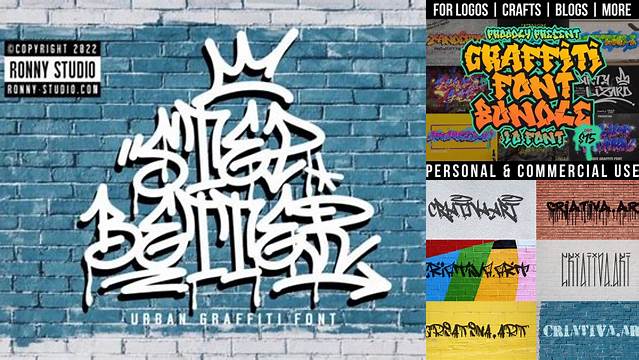
Free Graffiti Fonts For Commercial Use: Unleash Your Creativity
Hey guys! Are you looking to add some urban flair to your designs? You've come to the right place! Finding the perfect graffiti font that’s both free and commercially usable can be a bit of a mission. But don't worry, we've got you covered. In this article, we're diving deep into the world of graffiti fonts free for commercial use, exploring everything from where to find them to how to use them effectively. Let's get started!
1. Understanding Graffiti Fonts
Let's kick things off by understanding what exactly graffiti fonts are and why they're so popular. Graffiti fonts mimic the style of street art, bringing that raw, edgy aesthetic to your digital projects. They often feature bold strokes, irregular shapes, and a hand-drawn feel, making them perfect for designs that need a touch of urban authenticity. These fonts can instantly add character and attitude, whether you're working on a poster, logo, or social media graphic.
The beauty of graffiti fonts lies in their ability to convey a sense of rebellion and creativity. They break away from traditional, polished typography, offering a more expressive and dynamic alternative. Many designers and creatives are drawn to this style because it allows them to make a bold statement and stand out from the crowd. Using graffiti fonts free for commercial use means you can achieve this unique look without breaking the bank or worrying about licensing issues.
When you're choosing a graffiti font, consider the specific vibe you want to create. Some fonts are more aggressive and chaotic, while others are cleaner and more stylized. Think about the context of your project and select a font that complements your overall design. Remember, the right font can make all the difference in capturing the attention of your audience and conveying your message effectively. So, take your time, explore different options, and don't be afraid to experiment with various styles to find the perfect fit.
3. Top Websites for Free Graffiti Fonts
Ready to find some awesome fonts? There are several websites where you can find graffiti fonts free for commercial use. Here are a few of the best:
- DaFont: DaFont is a classic resource with a huge selection of fonts, including many graffiti styles. Make sure to check the license for each font, as they vary.
- FontSpace: FontSpace offers a wide range of free fonts, with clear licensing information. It's easy to filter your search to find fonts that are specifically for commercial use.
- Google Fonts: While Google Fonts doesn't have a massive selection of graffiti fonts, the ones they do offer are high-quality and explicitly licensed for commercial use.
- Creative Fabrica: Creative Fabrica often has freebies and deals that include commercial-use fonts. Keep an eye on their promotions to snag some great finds.
- MyFonts: MyFonts, while primarily a marketplace for paid fonts, occasionally offers free fonts with commercial licenses. It’s worth checking periodically for new additions.
When browsing these sites, always pay close attention to the licensing details. Look for terms like "100% free for commercial use" or "public domain." If you're unsure, it's always a good idea to contact the font's creator or the website's support team for clarification. This extra step can prevent potential legal issues and ensure you're using the fonts responsibly.
4. Key Features to Look for in a Graffiti Font
When you’re on the hunt for the perfect graffiti fonts free for commercial use, there are certain features you should keep an eye out for. These features can significantly impact the quality and versatility of the font, ensuring it meets your specific design needs.
- Readability: While graffiti fonts are known for their unique and edgy designs, readability is still crucial. Make sure the font is legible enough to convey your message effectively. A font that's too chaotic or distorted might be difficult for your audience to read, defeating the purpose of your design.
- Completeness: Check if the font includes all the characters you need, such as uppercase and lowercase letters, numbers, punctuation marks, and special symbols. A complete character set will give you more flexibility and control over your typography.
- Style Variations: Some graffiti fonts come with different weights, styles, or alternates. These variations can help you create visual interest and add depth to your designs. For example, a font might offer both a regular and bold version, or different stylistic alternates for certain letters.
- Licensing Terms: Always, always double-check the licensing terms. Ensure the font is indeed free for commercial use and understand any restrictions or requirements that may apply. This is perhaps the most important feature to verify before incorporating a font into your project.
- File Format: Make sure the font is available in a format that's compatible with your design software, such as TTF or OTF. These formats are widely supported and easy to install on most operating systems.
By considering these features, you can choose a graffiti font that not only looks great but also meets your practical design needs. Taking the time to evaluate these aspects will help you create professional and impactful designs that stand out from the crowd.
5. How to Install Graffiti Fonts on Your Computer
Okay, you've found the perfect graffiti fonts. Now what? Installing them is usually a breeze. Here’s a quick guide:
- Download the Font: Download the font file from the website. It usually comes in a ZIP file.
- Extract the Files: Unzip the downloaded file. You should see one or more files with extensions like .ttf or .otf.
- Install on Windows: Right-click the font file and select "Install." Alternatively, you can copy the font file to the Fonts folder in your Windows directory (usually C:\Windows\Fonts).
- Install on macOS: Double-click the font file. Font Book will open, and you can click "Install Font" at the bottom of the window.
Once installed, the graffiti font will be available in your design software, like Adobe Photoshop, Illustrator, or Canva. If you have any of these programs open during the installation, you might need to restart them for the new font to appear in the font list. Enjoy using your new fonts to create stunning designs!
Installing graffiti fonts free for commercial use is a straightforward process, but it's essential to follow the steps correctly to ensure the fonts are properly installed and accessible in your design applications. If you encounter any issues during installation, refer to the documentation provided with the font or consult online resources for troubleshooting tips. With a little patience, you'll be up and running in no time, ready to unleash your creativity with your new fonts.
6. Using Graffiti Fonts in Graphic Design
Using graffiti fonts free for commercial use in graphic design can add a unique and edgy touch to your projects. Here’s how to make the most of them:
- Posters and Flyers: Graffiti fonts are perfect for creating eye-catching posters and flyers, especially for events, concerts, or urban-themed promotions. Their bold and expressive style can grab attention and convey a sense of excitement.
- Logos and Branding: Incorporating a graffiti font into your logo can give your brand a distinctive and memorable identity. This works particularly well for businesses that want to project a cool, rebellious, or urban image.
- Social Media Graphics: Use graffiti fonts to create engaging social media graphics that stand out from the crowd. They can add personality and flair to your posts, helping you attract more followers and increase engagement.
- T-Shirt Designs: Graffiti fonts are a popular choice for t-shirt designs, especially those with a street-style or urban theme. Their bold and dynamic appearance can make your designs more visually appealing and marketable.
- Website Headers: Use graffiti fonts sparingly in website headers to create a striking first impression. However, be mindful of readability and ensure the font complements your overall website design.
When using graffiti fonts free for commercial use, it’s important to balance style with functionality. Avoid overusing them, as too much graffiti can make your designs look cluttered and unprofessional. Instead, use them strategically to highlight key messages and create visual interest. Experiment with different font combinations, colors, and effects to achieve the desired look. With a little creativity and attention to detail, you can use graffiti fonts to create stunning designs that resonate with your target audience.
7. Pairing Graffiti Fonts with Other Fonts
Combining graffiti fonts free for commercial use with other fonts can create visually appealing and balanced designs. The key is to choose fonts that complement the graffiti style without overshadowing it.
- Sans-Serif Fonts: Pairing a graffiti font with a clean and modern sans-serif font can create a striking contrast. Use the sans-serif font for body text or secondary information, while reserving the graffiti font for headings or titles.
- Serif Fonts: A classic serif font can add a touch of sophistication to your designs when paired with a graffiti font. Choose a serif font with a strong personality to create a balanced and harmonious look.
- Script Fonts: Combining a graffiti font with a script font can create a dynamic and expressive design. However, be careful not to overuse script fonts, as they can sometimes be difficult to read. Use them sparingly for emphasis or decorative elements.
- Monospace Fonts: A monospace font can provide a clean and technical contrast to the organic and hand-drawn feel of a graffiti font. This combination works well for designs that need to convey both creativity and precision.
When pairing graffiti fonts free for commercial use with other fonts, consider the overall tone and message of your design. Experiment with different font combinations until you find a look that works well together. Pay attention to the font sizes, weights, and spacing to ensure readability and visual balance. By carefully selecting and combining fonts, you can create designs that are both visually appealing and effective in communicating your message.
8. Legal Considerations for Using Free Fonts
Before you get too carried away, let's talk about the legal stuff. Even when a font is advertised as graffiti fonts free for commercial use, there are a few things you need to keep in mind:
- Read the License: Always read the font's license agreement carefully. This document outlines the terms and conditions under which you can use the font. Pay attention to any restrictions or requirements, such as attribution requirements or limitations on modification.
- Verify the Source: Make sure you're downloading fonts from a reputable source. Avoid downloading fonts from untrustworthy websites, as they may contain malware or viruses.
- Keep a Record: Keep a record of the fonts you've downloaded and their license agreements. This will help you stay organized and ensure you're complying with the terms of use.
- Seek Clarification: If you're unsure about any aspect of the font's license, don't hesitate to contact the font's creator or the website's support team for clarification.
Understanding the legal considerations for using graffiti fonts free for commercial use is essential for protecting yourself from potential legal issues. By taking the time to read and understand the license agreements, verifying the source of your fonts, and keeping accurate records, you can use these fonts with confidence and peace of mind. Remember, it's always better to be safe than sorry when it comes to copyright law.
9. Graffiti Fonts for Logos
Graffiti fonts can add a unique and edgy touch to logos, making them stand out from the crowd. When using graffiti fonts free for commercial use for logos, consider the following:
- Brand Identity: Make sure the graffiti font aligns with your brand identity. If your brand is edgy, urban, or rebellious, a graffiti font can be a great choice. However, if your brand is more traditional or conservative, a graffiti font may not be the best fit.
- Readability: Ensure the graffiti font is legible enough to be easily read in your logo. A logo that's difficult to read will not be effective in communicating your brand message.
- Simplicity: Keep your logo design simple and uncluttered. A logo with too many elements can be overwhelming and difficult to remember.
- Versatility: Choose a graffiti font that is versatile enough to be used in a variety of applications, such as on your website, business cards, and marketing materials.
Using graffiti fonts free for commercial use for logos can be a great way to create a distinctive and memorable brand identity. By carefully selecting a font that aligns with your brand identity, ensuring readability, keeping your design simple, and choosing a versatile font, you can create a logo that effectively communicates your brand message and stands out from the competition.
10. Graffiti Fonts for T-Shirts
Graffiti fonts are a popular choice for t-shirt designs, especially those with a street-style or urban theme. When using graffiti fonts free for commercial use for t-shirts, consider the following:
- Design Placement: Think about where you want to place the graffiti font on the t-shirt. Common placements include the front, back, or sleeves.
- Color Combinations: Experiment with different color combinations to create a visually appealing design. Consider using contrasting colors to make the graffiti font stand out.
- Size and Scale: Adjust the size and scale of the graffiti font to fit the t-shirt design. Make sure the font is large enough to be easily read, but not so large that it overwhelms the design.
- Design Elements: Incorporate other design elements, such as graphics or illustrations, to complement the graffiti font and create a more complete design.
Using graffiti fonts free for commercial use for t-shirts can be a great way to create unique and stylish designs that appeal to your target audience. By carefully considering the design placement, color combinations, size and scale, and other design elements, you can create t-shirts that are both visually appealing and marketable.
11. Graffiti Fonts for Posters
For posters that need a bold, attention-grabbing look, graffiti fonts are an excellent choice. Their edgy and urban aesthetic can make any poster stand out. Here’s what to consider when using graffiti fonts free for commercial use for posters:
- Target Audience: Think about who your poster is trying to reach. Graffiti fonts work best for younger audiences or those interested in urban culture, music, and art. If your target audience is more corporate or traditional, a graffiti font might not be the best choice.
- Poster Size: The size of your poster will affect how readable the font is. For large posters, you can use more intricate and detailed graffiti fonts. For smaller posters, opt for simpler, more legible designs.
- Message Clarity: Make sure the message on your poster is clear and easy to understand. While graffiti fonts can add flair, readability should always be a top priority. Use the font for key words or phrases that you want to emphasize.
- Color Scheme: Choose colors that complement the graffiti font and enhance the overall visual impact of the poster. Bold, contrasting colors often work well with graffiti styles.
12. Graffiti Fonts for Social Media
In the fast-paced world of social media, capturing attention is key. Graffiti fonts can help you create posts that pop and grab your audience's attention. When using graffiti fonts free for commercial use for social media, keep these tips in mind:
- Platform Compatibility: Make sure the graffiti font you choose is compatible with the social media platform you're using. Some platforms may have limitations on font types or sizes.
- Mobile-Friendly: Most social media users access content on their mobile devices, so it's important to choose a graffiti font that is legible on small screens. Avoid overly intricate or stylized fonts that may be difficult to read on mobile.
- Brand Consistency: Maintain brand consistency by using the same graffiti font across all your social media posts. This will help reinforce your brand identity and make your content more recognizable.
- Call to Action: Use graffiti fonts to highlight your call to action and encourage your audience to take the desired action, such as visiting your website or making a purchase.
13. Graffiti Fonts for Websites
Using graffiti fonts free for commercial use on your website can add a unique and edgy touch, but it's important to use them strategically. Here’s what to consider:
- Loading Speed: Graffiti fonts can sometimes be large files, which can slow down your website's loading speed. Optimize the font files to ensure they don't negatively impact your website's performance.
- User Experience: Consider the user experience when using graffiti fonts on your website. Avoid using them for large blocks of text, as they can be difficult to read. Instead, use them sparingly for headings, titles, or other key elements.
- SEO Considerations: Use graffiti fonts in a way that doesn't negatively impact your website's SEO. Make sure your website is still easily crawlable by search engines, and that your content is optimized for relevant keywords.
- Accessibility: Ensure that your website is accessible to users with disabilities. Use appropriate color contrast and font sizes to make your content easy to read.
14. Free vs. Paid Graffiti Fonts
When choosing graffiti fonts free for commercial use, you might wonder about the differences between free and paid options. Here's a breakdown:
- Quality: Paid graffiti fonts often offer higher quality and more detailed designs compared to free fonts. They may also include additional features, such as multiple weights, styles, or language support.
- Licensing: Free graffiti fonts may have more restrictive licensing terms compared to paid fonts. Always read the license agreement carefully to ensure you're complying with the terms of use.
- Support: Paid graffiti fonts typically come with customer support, which can be helpful if you have any questions or issues. Free fonts may not offer any support.
- Uniqueness: Paid graffiti fonts are often more unique and less widely used compared to free fonts. This can help your designs stand out and create a more distinctive brand identity.
15. Creating Your Own Graffiti Font
Want to take your creativity to the next level? Consider creating your own graffiti font! Here's a basic overview of the process:
- Sketching: Start by sketching out the letters and characters you want to include in your font. Experiment with different styles and techniques to create a unique and original design.
- Digitizing: Use a digital drawing tablet and software like Adobe Illustrator or Procreate to digitize your sketches. Refine your designs and create clean, vector-based versions of each character.
- Font Software: Import your digitized characters into font software like FontLab Studio or Glyphs. These programs allow you to create a functional font file that can be installed and used on your computer.
- Testing: Test your font thoroughly to ensure it works correctly and looks good in a variety of applications. Make any necessary adjustments or refinements before finalizing your design.
16. The Evolution of Graffiti Fonts
The story of graffiti fonts is intertwined with the history of street art and urban culture. Originating from the tagging and lettering styles of graffiti artists, these fonts have evolved significantly over time. Early graffiti fonts were often simple and raw, reflecting the DIY spirit of the street art movement. As graffiti gained more recognition and acceptance, graffiti fonts became more sophisticated and stylized.
Today, graffiti fonts are used in a wide range of design applications, from posters and logos to websites and social media graphics. They have become a versatile and expressive tool for designers looking to add a touch of urban flair to their work. The evolution of graffiti fonts reflects the ongoing evolution of street art and its influence on mainstream culture.
17. The Psychology of Graffiti Fonts
Graffiti fonts evoke a range of emotions and associations, from rebellion and edginess to creativity and urban authenticity. Understanding the psychology of graffiti fonts can help you use them more effectively in your designs. These fonts often convey a sense of youthfulness, energy, and nonconformity.
When used appropriately, graffiti fonts can grab attention, create visual interest, and communicate a sense of excitement or urgency. However, they can also be perceived as aggressive or chaotic if used improperly. Consider your target audience and the message you want to convey when choosing a graffiti font for your design.
18. Graffiti Fonts in Pop Culture
Graffiti fonts have made a significant impact on pop culture, appearing in movies, music videos, video games, and other forms of entertainment. They are often used to create a sense of urban realism or to convey a rebellious attitude.
Many iconic brands and artists have used graffiti fonts to promote their products or express their creative vision. From album covers to movie posters, graffiti fonts have become a recognizable and influential element of pop culture.
19. Graffiti Font Generators
If you need a quick and easy way to create graffiti-style text, consider using a graffiti font generator. These online tools allow you to enter text and generate an image with a graffiti font of your choice.
While graffiti font generators can be convenient, keep in mind that the quality of the output may not be as high as a professionally designed font. Also, be sure to check the licensing terms before using the generated images for commercial purposes.
20. Graffiti Fonts and Street Art
The connection between graffiti fonts and street art is undeniable. Graffiti fonts are inspired by the lettering styles and techniques used by graffiti artists in urban environments. Many graffiti fonts incorporate elements of tagging, stencils, and other forms of street art.
Using graffiti fonts in your designs can be a way to pay homage to the street art movement and to bring a touch of urban authenticity to your work. However, it's important to be respectful of the culture and to avoid appropriating or misrepresenting it.
21. Best Graffiti Fonts for Beginners
If you're just starting out with graffiti fonts, it's best to begin with simpler, more legible designs. Here are a few good options for beginners:
- Bombing: A classic graffiti font with bold, rounded letters.
- Street Cred: A clean and modern graffiti font with a slightly distressed look.
- Urban Decay: A grungy graffiti font with a rough, textured appearance.
- Tag Machine: A simple and versatile graffiti font that's easy to read.
22. Advanced Techniques with Graffiti Fonts
Once you're comfortable using graffiti fonts, you can start experimenting with more advanced techniques. Here are a few ideas:
- Layering: Layer multiple graffiti fonts on top of each other to create depth and visual interest.
- Distorting: Distort or warp graffiti fonts to create a more dynamic and unconventional look.
- Adding Effects: Add effects like shadows, glows, or textures to enhance the visual impact of your graffiti fonts.
- Customizing: Customize graffiti fonts by adding your own unique touches, such as hand-drawn elements or illustrations.
23. The Future of Graffiti Fonts
As design trends continue to evolve, graffiti fonts are likely to remain a popular and influential element of visual culture. With the rise of digital art and the increasing accessibility of design tools, we can expect to see even more innovative and experimental graffiti fonts in the future.
The future of graffiti fonts may also involve incorporating new technologies like virtual reality and augmented reality, allowing designers to create immersive and interactive graffiti-inspired experiences.
24. Graffiti Fonts in Motion Graphics
Graffiti fonts can add a dynamic and energetic touch to motion graphics projects. They are often used in title sequences, lower thirds, and other animated elements to create a sense of urban style or rebellious attitude.
When using graffiti fonts in motion graphics, consider animating the letters or adding effects like spray paint or dripping ink to enhance the visual impact.
25. Graffiti Fonts for Event Invitations
If you're hosting an event with an urban, edgy, or rebellious theme, graffiti fonts can be a great choice for your invitations. They can help set the tone for the event and create a sense of excitement and anticipation.
When using graffiti fonts for event invitations, be sure to include all the essential information, such as the date, time, location, and RSVP details. Keep the design clean and uncluttered to ensure that the information is easy to read.
26. Graffiti Fonts and Subcultures
Graffiti fonts have deep roots in various subcultures, including hip-hop, punk rock, and skateboarding. They are often used to express the values and attitudes of these subcultures.
Understanding the cultural context of graffiti fonts can help you use them more effectively in your designs. Consider the specific subculture you're targeting and choose a graffiti font that aligns with its values and aesthetics.
27. Graffiti Fonts for Album Art
Graffiti fonts are a popular choice for album art, especially for hip-hop, punk rock, and alternative music genres. They can help create a visually striking and memorable cover that reflects the music's style and attitude.
When using graffiti fonts for album art, be sure to consider the overall design of the cover and choose a font that complements the other elements, such as the imagery and color scheme.
28. Graffiti Fonts and Branding
Using graffiti fonts free for commercial use as part of your branding can give your business a unique and edgy identity. Here’s how to do it right:
- Target Audience: Know who you’re trying to reach. Graffiti fonts work well if your audience is into street culture, art, or a more rebellious vibe. If you're targeting a more corporate or traditional audience, this might not be the best choice.
- Consistency is Key: Use the same graffiti font across all your branding materials – website, social media, business cards, etc. This helps create a recognizable and cohesive brand image.
- Mix and Match: Combine your graffiti font with a more professional font for body text to ensure readability. Use the graffiti font for headings or logos to add that urban flair without sacrificing clarity.
- Color Matters: Choose colors that complement the graffiti font and match your brand’s overall aesthetic. Bold, contrasting colors can make your branding pop, but make sure it aligns with your brand’s message.
29. Finding Inspiration for Graffiti Fonts
Stuck in a creative rut? Here are some ways to find inspiration for your next graffiti font project:
- Street Art: Take a walk around your city and check out the local street art scene. Pay attention to the different lettering styles, colors, and techniques used by graffiti artists.
- Online Galleries: Browse online galleries and design blogs that showcase graffiti art and typography. Look for fonts that catch your eye and inspire your own designs.
- Social Media: Follow graffiti artists and designers on social media platforms like Instagram and Pinterest. Keep up with the latest trends and techniques in the graffiti art world.
- Books and Magazines: Check out books and magazines that feature graffiti art and typography. These resources can provide in-depth information about the history, techniques, and cultural significance of graffiti fonts.
30. Common Mistakes to Avoid with Graffiti Fonts
To ensure your designs look professional and effective, here are some common mistakes to avoid when using graffiti fonts free for commercial use:
- Overuse: Don’t use graffiti fonts for every single element in your design. Less is more. Use them strategically to highlight key messages and add visual interest, but avoid overwhelming your audience.
- Poor Readability: Make sure your graffiti font is legible, especially for important information. If your audience can't read it, they won't get the message.
- Inconsistent Style: Don’t mix too many different graffiti fonts in one design. Stick to a consistent style to maintain a cohesive and professional look.
By following these tips and avoiding these common mistakes, you can use graffiti fonts free for commercial use to create stunning designs that capture the essence of urban culture and street art. Go forth and create, guys! And remember to have fun with it!